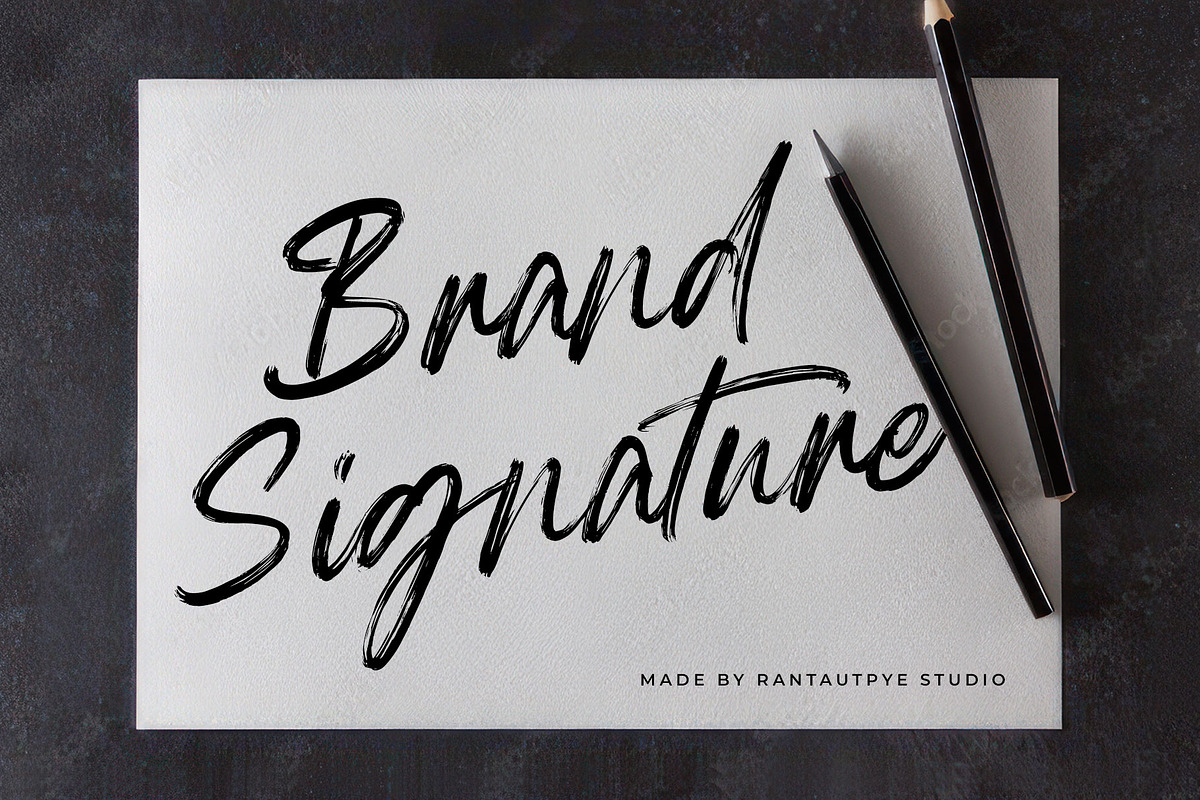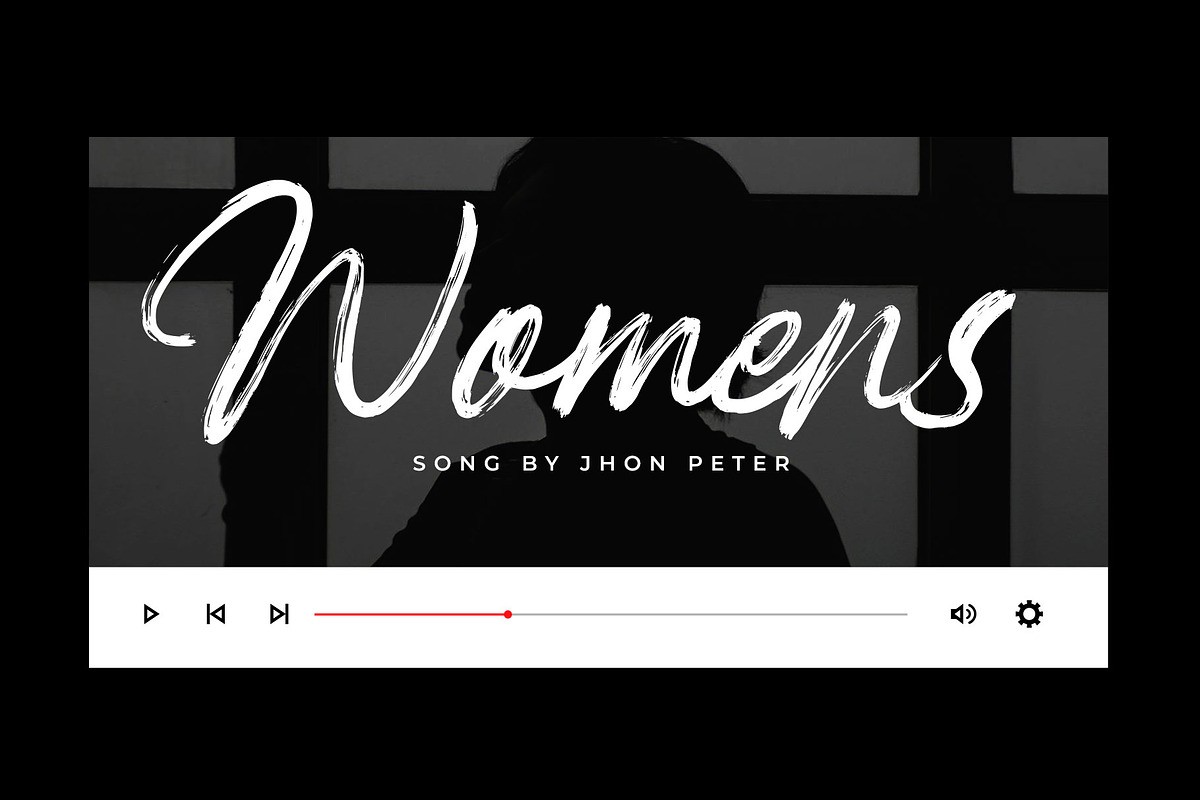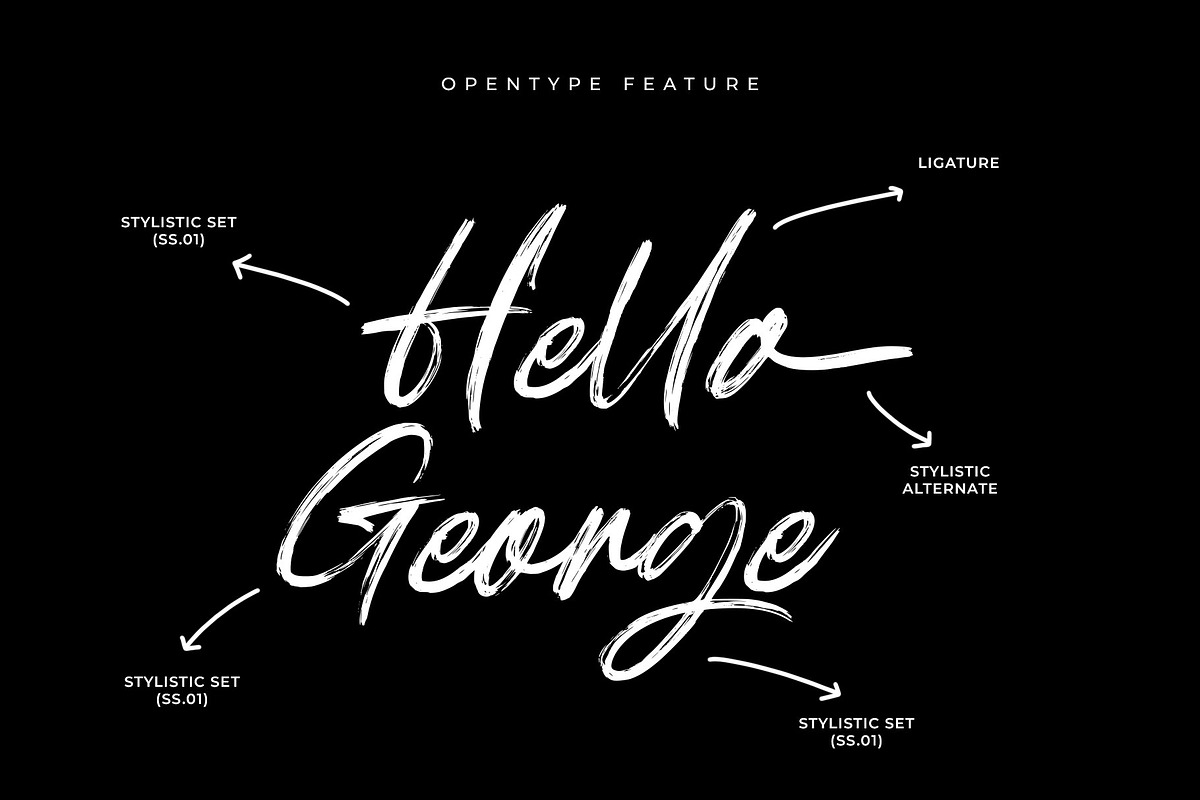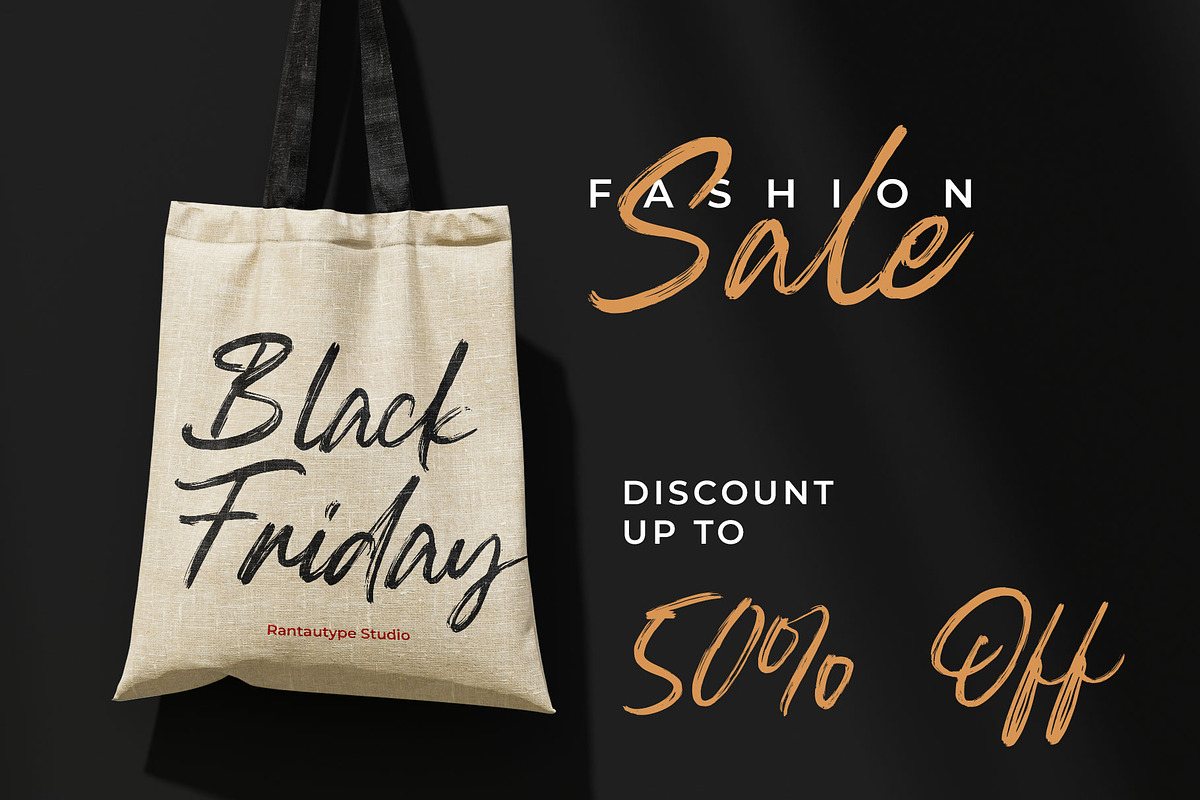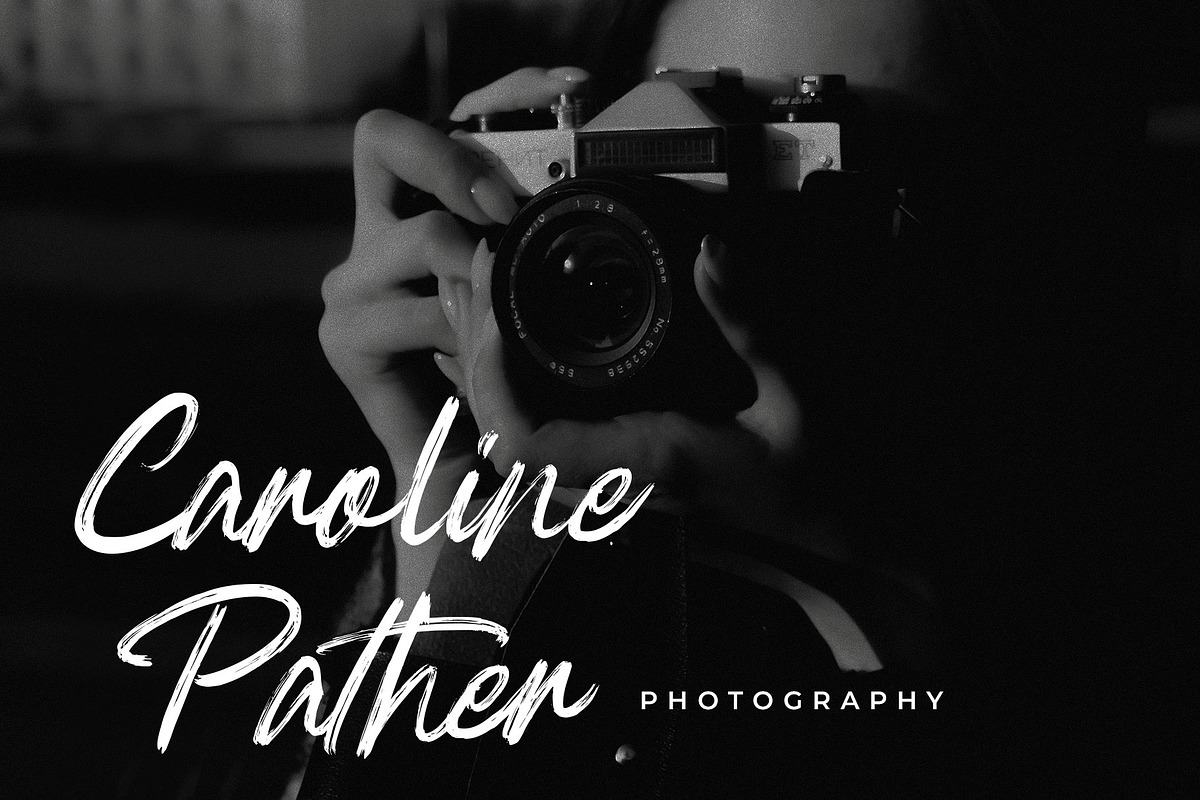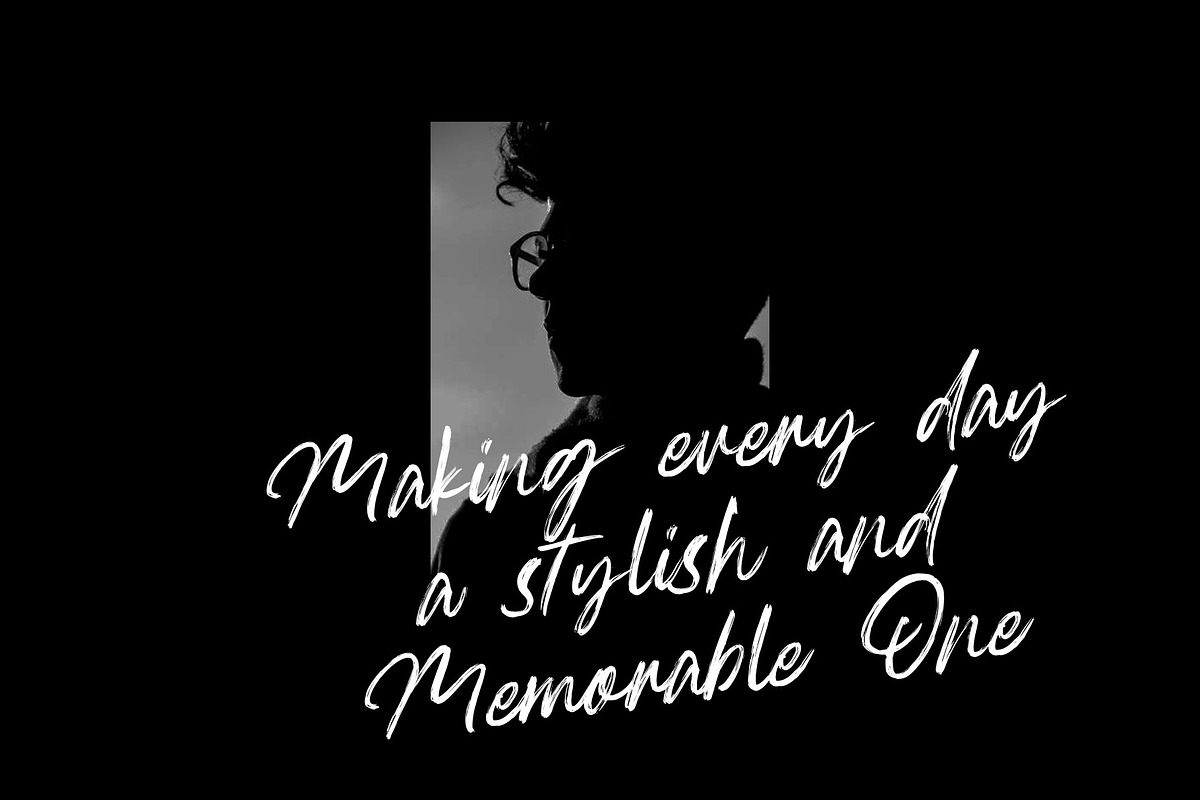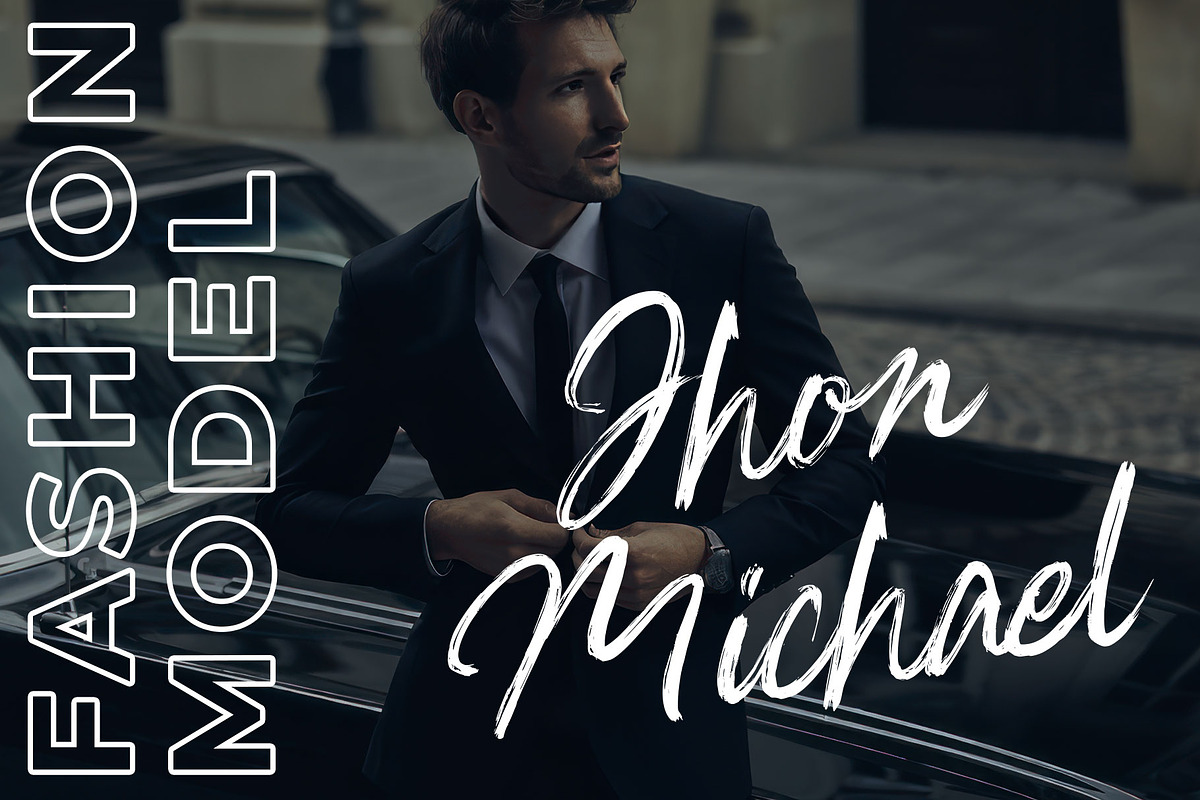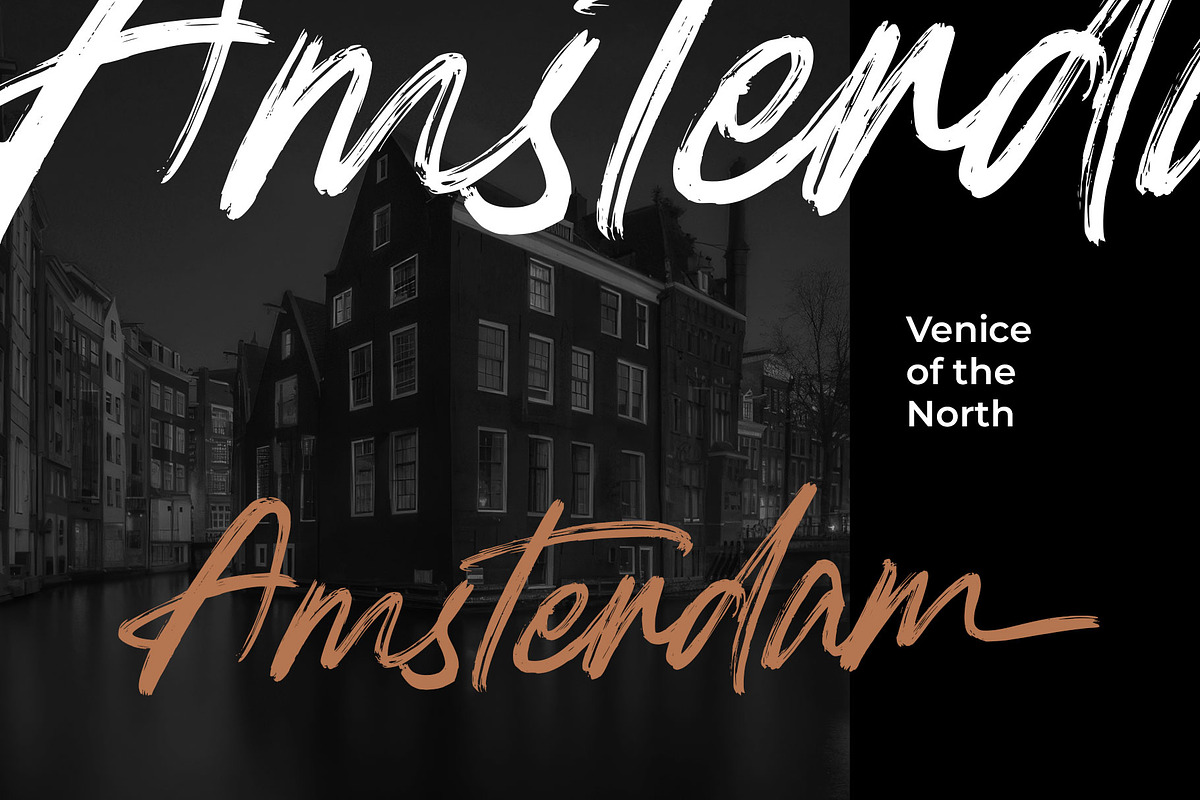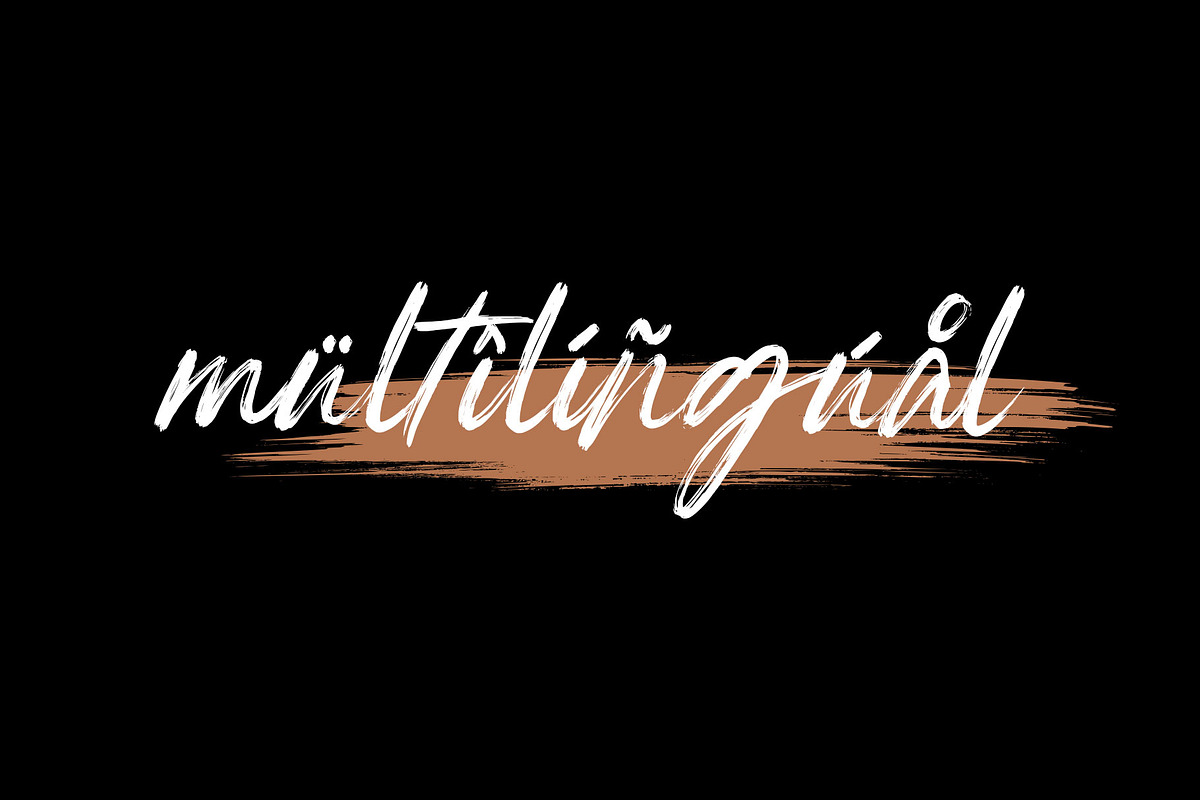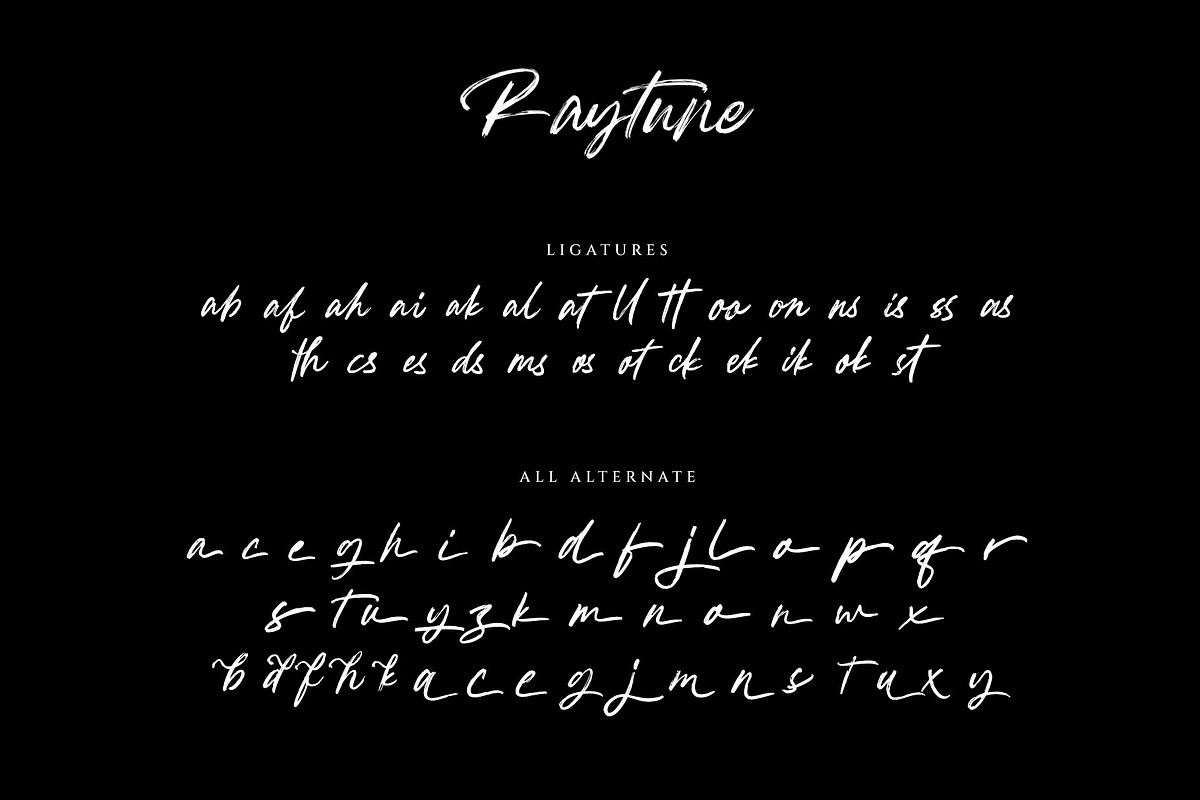
Raytune Signature Brush Typeface
Raytune is signature typeface with stylish scratches. Raytune come to making your design project impressive and your brand more stand out.
Raytune is a perfect choice for any creative endeavor, chic, lifestyle design such as logos, advertisements, watermark on photography, stationery, branding project, display and magazine, invitation, corporate brand, product design, label, business project and many other project need handwriting taste.
- Ligature and alternate
Fonts include multilingual support for: Afrikaans, Albanian, Basque, Bemba, Bena, Breton, Catalan, Chiga, Cornish, Danish, Dutch, English, Estonian, Filipino, Finnish, French, Galician, German, Icelandic, Indonesian, Irish, Italian, Kinyarwanda, Luxembourgish, North, Norwegian, Portuguese, Romansh, Rombo, Rundi, Scottish, Gaelic, Sena, Shambala, Shona, Soga, Somali, Spanish, Swahili, Swedish, Swiss, German.